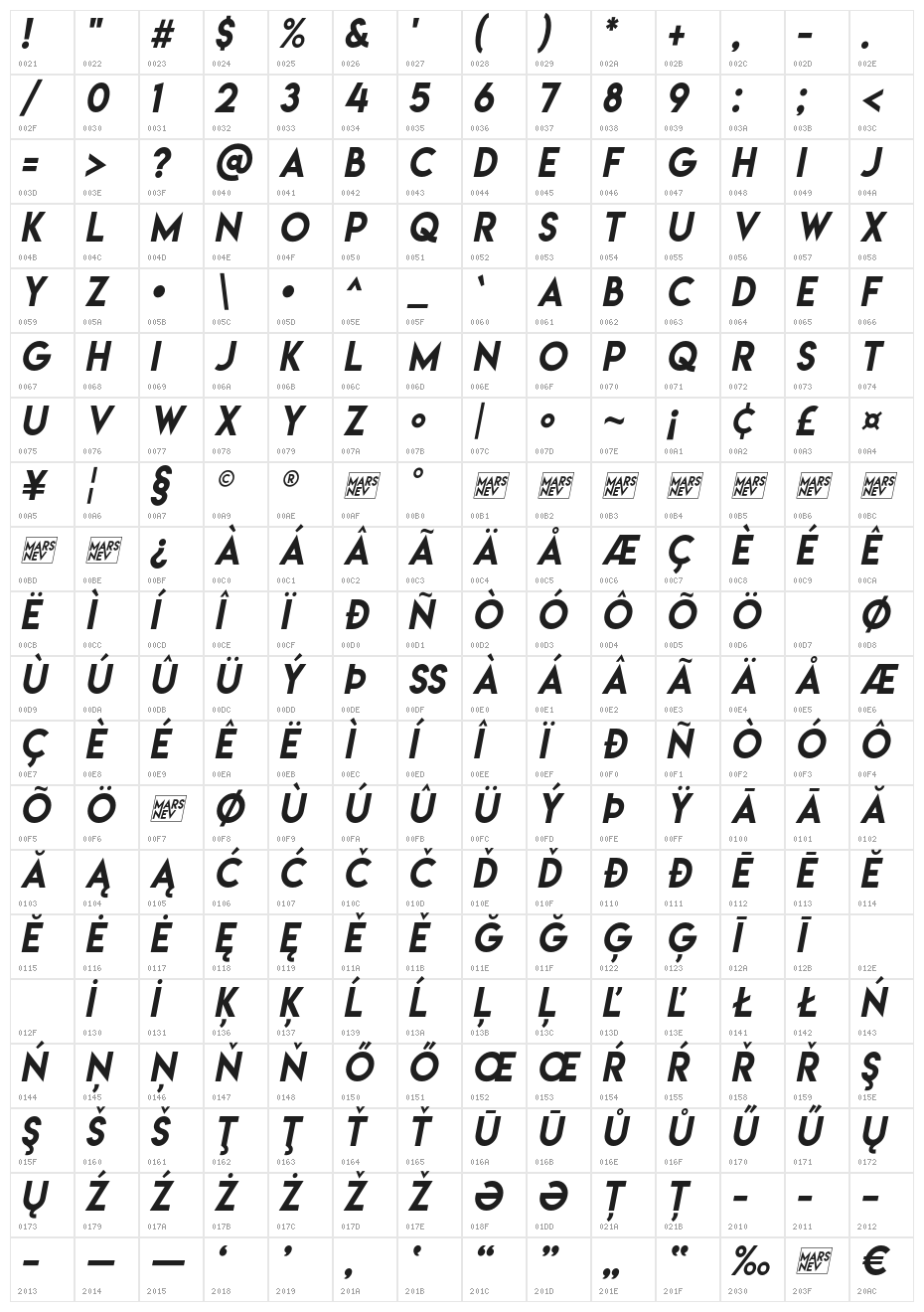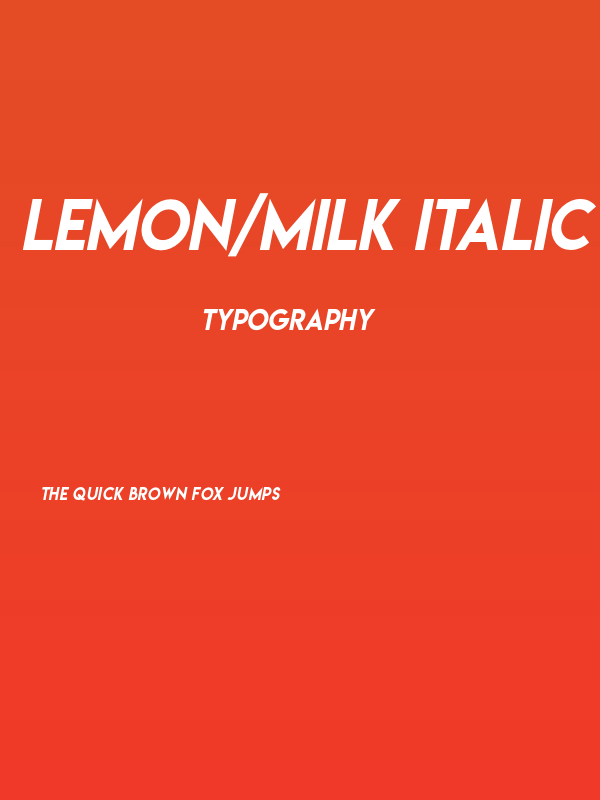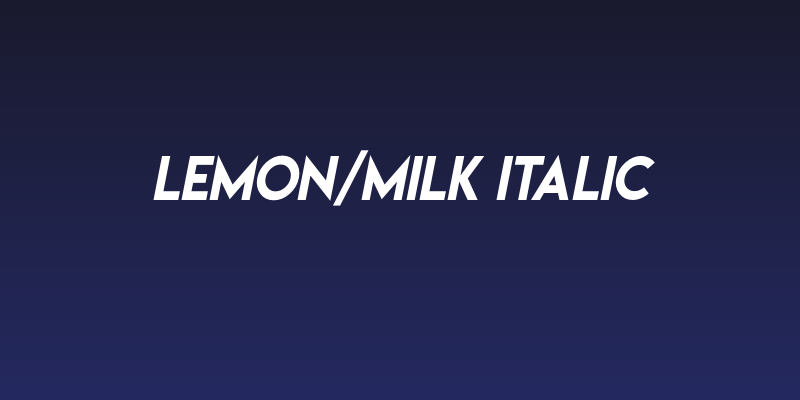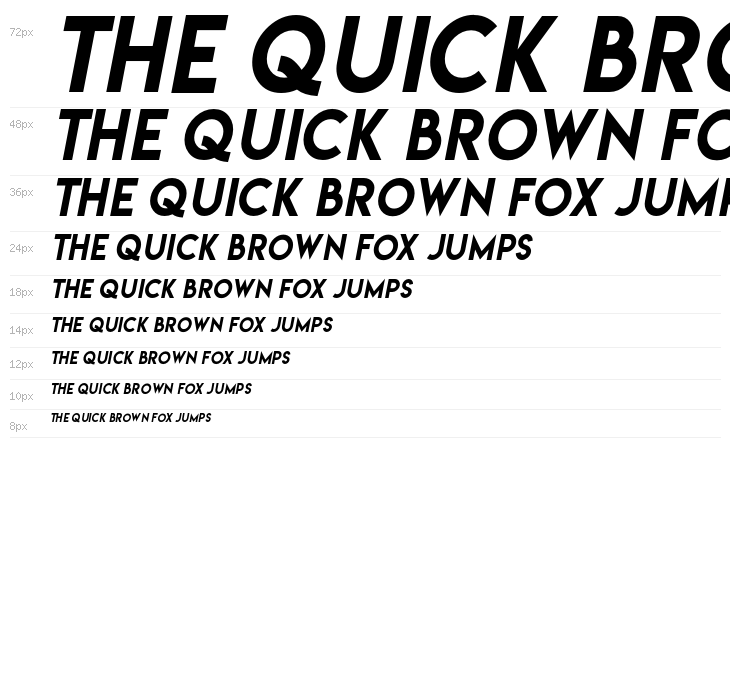
Lemon/Milk italic Font
Lemon/Milk italic Description
This font features a bold and dynamic style with a modern flair. The characters are slightly slanted, giving an italicized appearance that adds a sense of motion and energy. The strokes are thick and consistent, providing a strong visual impact. The overall design is clean and geometric, with sharp angles and smooth curves that create a harmonious balance. The uppercase and lowercase letters maintain a uniform height, contributing to a cohesive look. The numerals and special characters are designed with the same attention to detail, ensuring readability and aesthetic appeal.
| Use Case | Headlines, Logos, Branding |
| Proposed Projects | Ideal for branding, advertising, headlines, and digital media projects that require a strong and contemporary look. |